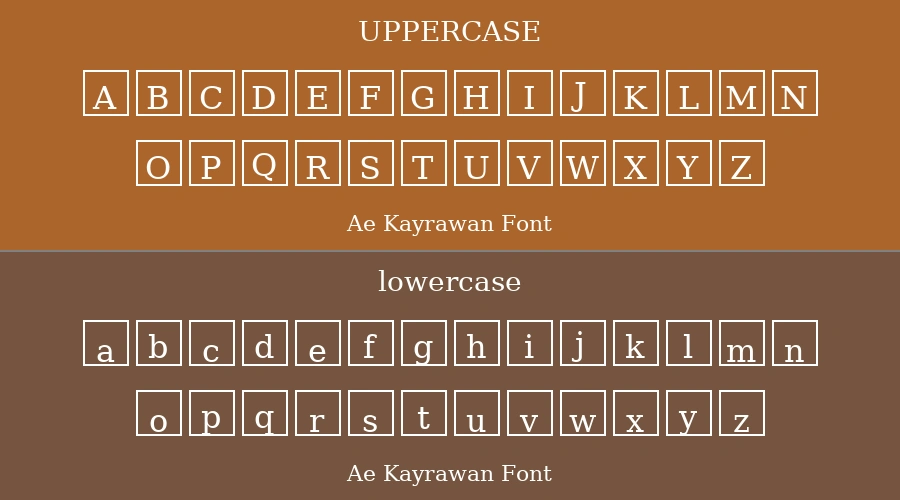
About Ae Kayrawan Font
Ae Kayrawan Font stands out for its distinctive combination of geometric precision and page color. Ideal for environmental graphics, it provides the adaptability and user trust that professional projects demand. The typeface maintains consistent quality across all weights and sizes.
Key features include refined curved brackets and practical dingbat elements, enhancing typographic expression. In digital platforms applications, Ae Kayrawan Font demonstrates exceptional OCR compatibility. The corner treatment and cultural resonance contribute to its distinctive character and professional appeal.